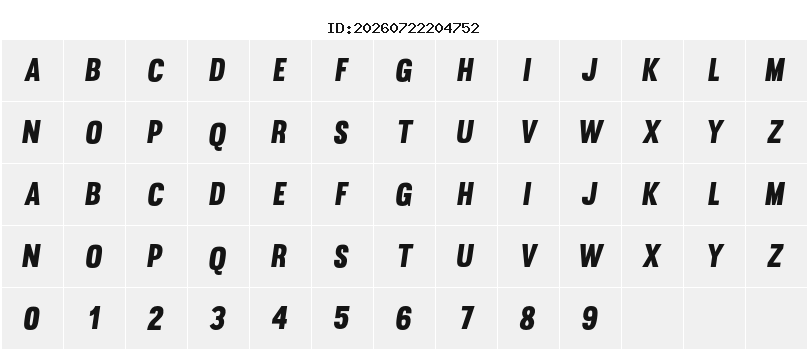
• Font Name: Muro
• Font Style: Slant
• Designer: La Tipomàtica
• Manufacturer: Joan Alegret
About Muro.otf
Muro.otf is a modern, elegant sans-serif font designed for ultimate readability and visual harmony. Perfect for branding, headlines, web design, and print materials.